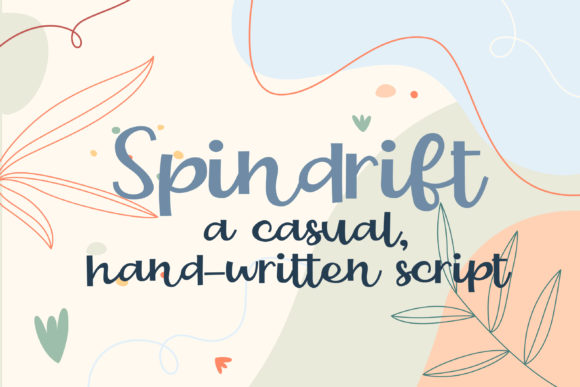
Journey into the world of ZP Spindrift, the script font that's like holding a piece of history. Let your written words dance with charm, elegance, and a touch of nostalgia. Picture a vintage letter, penned with grace and soul, where each stroke tells a story. ZP Spindrift takes you on a voyage through time, awakening the romance of handwritten notes and the warmth of handwritten letters.
Touch the Heart, Embrace the Timeless:
With its charmingly informal uppercase and flowing lowercase letters, ZP Spindrift is a true treasure. This script font isn't just a collection of characters; it's an invitation to express your heart's desires, to let your thoughts flow effortlessly onto the page. Whether you're a designer, an artist, or simply someone who appreciates beauty, ZP Spindrift will capture your imagination and leave an unforgettable mark.
Beyond the Ordinary, Unleash Your Creativity:
ZP Spindrift's versatility knows no bounds. From invitations and greeting cards to posters and branding, it effortlessly adapts to any canvas, transforming your projects into works of art. Its Stencil companion opens up a realm of boundless creativity, allowing you to craft captivating designs that leap off the screen. Express your individuality, make a statement, and leave a lasting impression with ZP Spindrift.
The Perfect Union: ZP Spindrift and Reading Print:
In the realm of reading, ZP Spindrift shines as a beacon of clarity. Its meticulously crafted characters ensure effortless readability, making it the ideal choice for books, magazines, and any printed material that seeks to engage and captivate. Allow your readers to immerse themselves in a world of words, where comprehension and enjoyment go hand in hand, thanks to the beautiful, legible script of ZP Spindrift.
Let Your Words Take Center Stage:
With ZP Spindrift, your words take center stage, commanding attention and leaving a lasting impression. Perfect for headlines, logos, and social media posts, this font elevates your message, making it unforgettable. Let your words dance with sophistication, capture the essence of your brand, and resonate with your audience in a way that ordinary fonts simply can't.
Unleash the Power of Print Perfection:
Step into the world of print with confidence, knowing that ZP Spindrift will make your creations shine. Its print-like uppercase letters lend an air of authenticity, capturing the essence of traditional craftsmanship. Your printed materials will exude an elegance and charm that will leave a lasting impression on recipients.